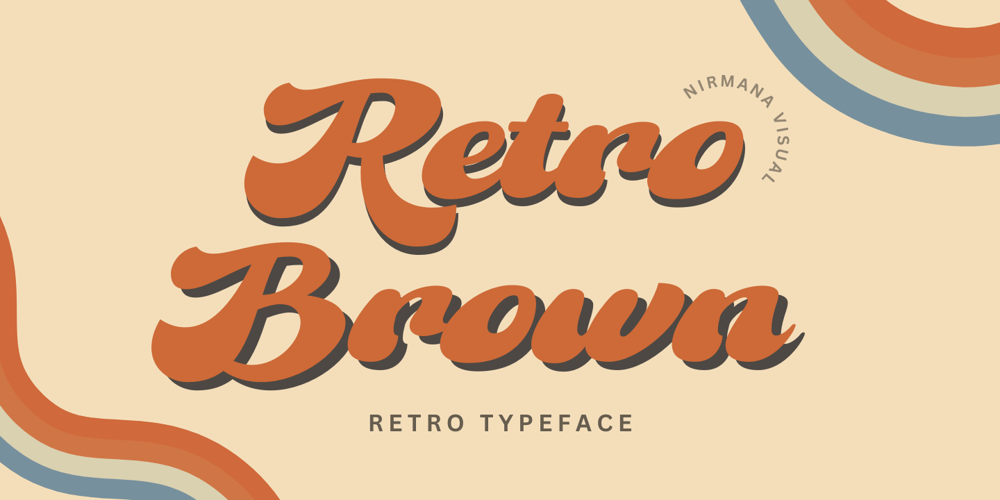
Retro Brown
Retro Brown font
Retro Brown Font Family was designed by Sigit Dwipa and published by Nirmana Visual. Retro Brown contains 1 styles and family package options. Retro Brown, Inspired by 70s Design Era.Retro Brown offers beautiful typographic harmony for a diversity of design projects, including logos & branding, social media posts, advertisements & product designs.